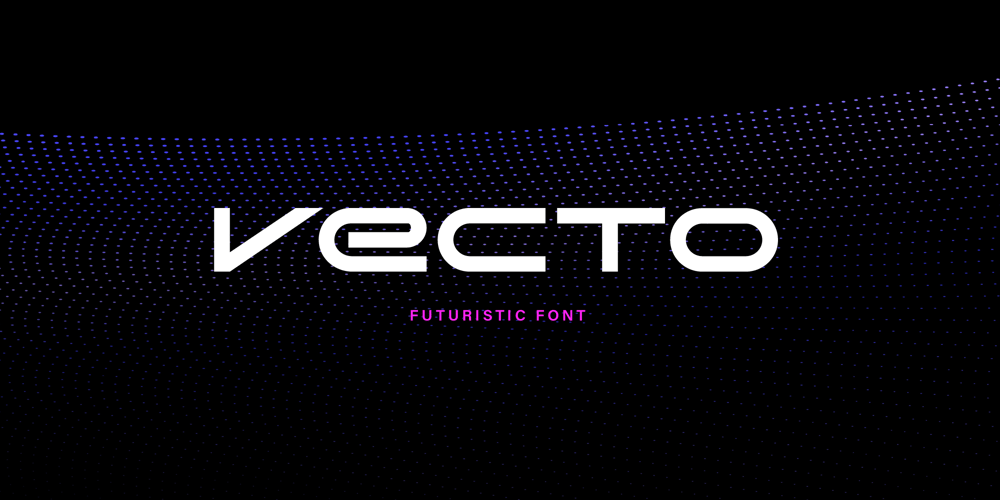
Vecto Font Family was designed by ryan creative and published by ryan creative. Vecto contains 2 styles and family package options. Vecto is a typography designed by Ryan creative that encapsulates a modern minimalist vision approach, formal rigor, and shows a variety of designed characters including glyphs as well as depicting graphics in a modern way, that subtle constructive anatomy, those geometric ratios produces kerning and precision lines.FEATURES; Uppercase. Support Foreign, Numbers and Punctuation. Regular & Italic. Works on PC. Simple installation. Accessible in Adobe Illustrator, Adobe Photoshop. Adobe InDesign, it even works in Microsoft Word. Fully accessible without additional design software. Vecto is encoded with Unicode PUA, which allows full access to all additional characters without having to design any special software. Mac users can use the Font book, and Windows users can use the Character map to view and copy any extra characters to paste into your favorite text editor/app. Thanks for visiting, have a nice day 😉